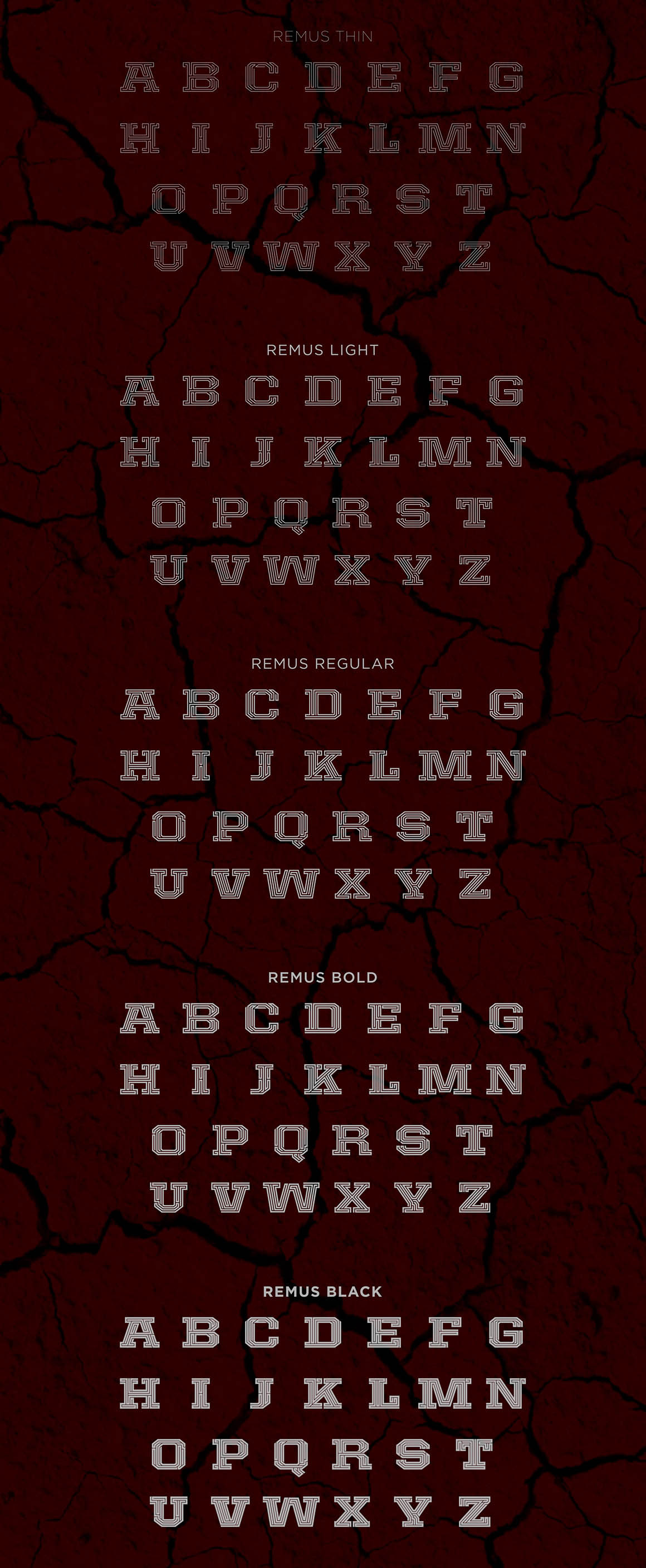
REMUS – Vector Typeface
Unique geometric style vector typeface from Stephen Delgado. With 5 weights and 3 file formats: AI, EPS & PNG. Download & enjoy 😉